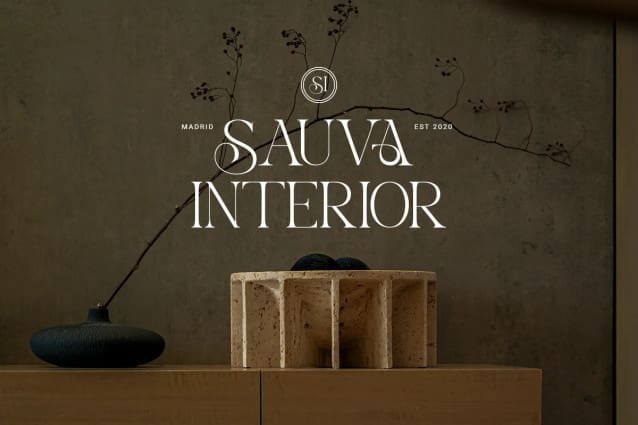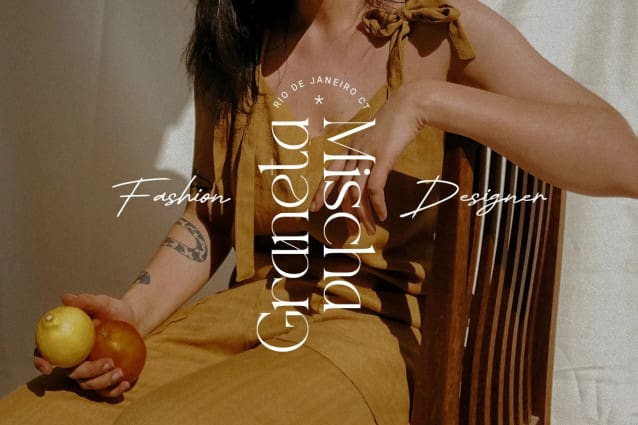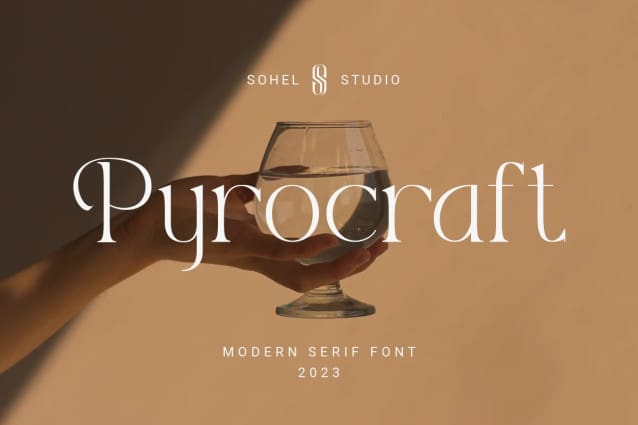
Pyrocraft Font
Pyrocraft Font is a Modern elegant serif typeface with Unique alternative , multilingual support with perfect kerning. This typeface is perfect for an elegant & luxury logo , classy editorial design, women’s magazine, fashion brand , cosmetic brand, fashion promotion , modern advertising design, invitation card, art quote, home decoration , book/cover titles, special events, Tote bag, T-shirt, Advertising and much more.